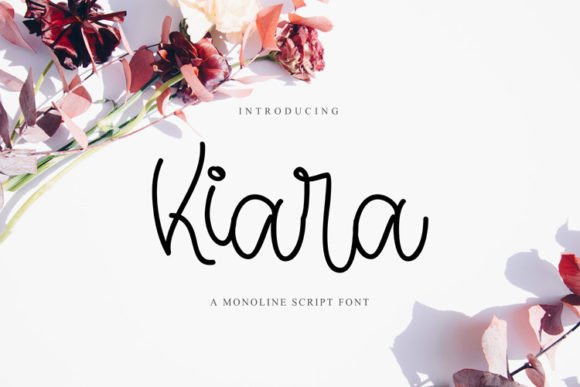
Journey into a world of elegance and charm with Kiara Font, the captivating script & handwritten typeface that transforms digital spaces into realms of beauty. Ed.creative has crafted this masterpiece with utmost care, infusing it with the essence of sophistication and timeless charm.
Kiara Font takes you on a journey through the world of handwritten grace, evoking the allure of personal penmanship. Its flowing strokes dance across the screen, captivating audiences with their delicate curves and intricate details. Whether you're creating wedding invitations, logos, or branding masterpieces, Kiara Font adds a touch of ethereal charm, making every word a work of art.
With Kiara Font, you can unleash your creativity and let your imagination soar. Its versatility shines in various projects, from social media posts that captivate the senses to branding campaigns that leave a lasting impression. It's the perfect companion for Instagram, effortlessly elevating your content and turning your posts into visual masterpieces.
Kiara Font possesses an inherent magnetism, drawing viewers into your digital creations. Its romantic aura and captivating presence make it the ideal choice for wedding invitations, and save-the-dates, adding a touch of elegance and charm to your special day.
Step into a world of sophistication and grace with Kiara Font, where every letter is a testament to beauty and elegance. Let your creativity flourish and captivate the digital landscape with every stroke of this enchanting script & handwritten typeface. Embrace the allure of Kiara Font and let your designs shine with timeless charm and effortless allure.